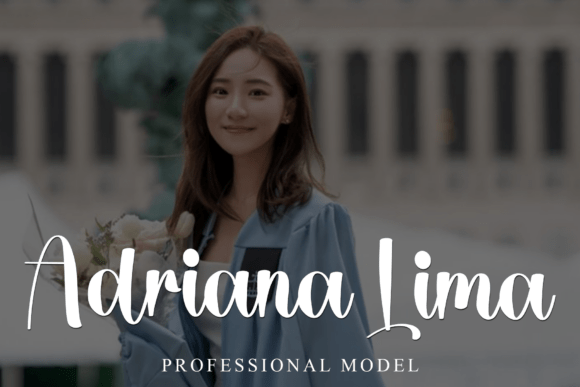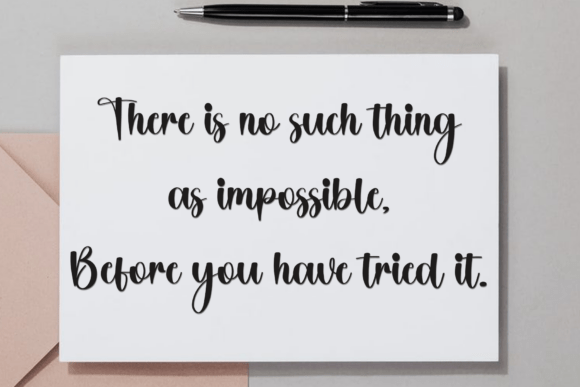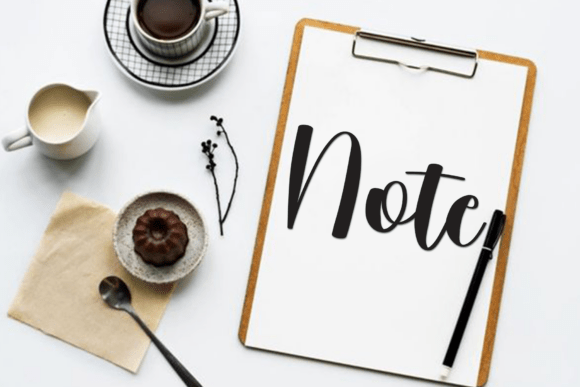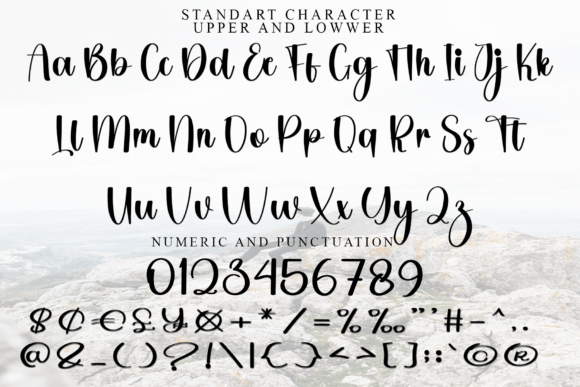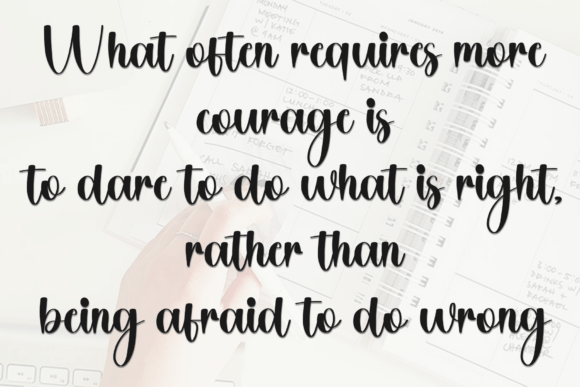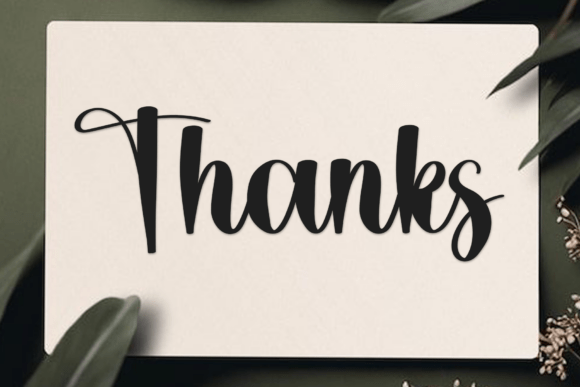
Introduction to Christmas Maddison Font
As you sit amidst the twinkling lights of your Christmas tree, surrounded by the warmth of loved ones, a creative spark strikes. You envision a beautiful holiday card, with elegant typography and a touch of whimsy. This is where the Christmas Maddison Font comes in – a stunning, handcrafted typeface that adds a personal touch to your creative projects. Its soft, unique strokes evoke a sense of wonder, making it the perfect companion for designers looking to infuse their work with a high-quality, distinctive character.
Whether you’re working on a design project, crafting a special gift, or simply looking for a free download to enhance your designs, the Christmas Maddison Font is an invaluable resource. Its transparent background and compatibility with various applications make it a versatile tool for designers across different artistic fields. With its natural, effortless style, this font is sure to elevate your creative endeavors and leave a lasting impression on your audience.
Key Features of Christmas Maddison Font
- High-quality design for creative projects: This font is perfect for adding a festive touch to your designs, from greeting cards to digital invitations.
- Unique, hand-drawn style: The Christmas Maddison Font features a unique, hand-drawn style that adds a personal touch to any design project.
Honest Review: Christmas Maddison Font
First impressions were great – the font is high quality and the transparent background made it easy to integrate into my design. I appreciated how versatile it was, suitable for both digital and print materials. The font’s unique style added a touch of elegance to my project, making it stand out from the crowd.
- What works well: ✨ The font’s aesthetic is perfect for a creative project like a holiday card or a festive brochure. It’s also great for social media graphics and digital invitations.
However, I did encounter a limitation: ⚠️ The font’s character set is limited, which may not be ideal for longer texts or in-depth content.
Overall, I’m impressed with the Christmas Maddison Font. Its unique style and high quality make it a valuable design resource. While it may not be suitable for all projects, it’s a great addition to any designer’s toolkit, especially for holiday-themed creative projects.
The Christmas Maddison Font is perfect for creating festive designs, graphics, and presentations. You can use it for creating holiday cards, gift tags, and social media posts. This font is also great for adding a touch of festivity to your website, blog, or online store.